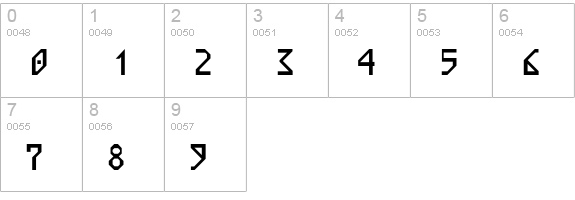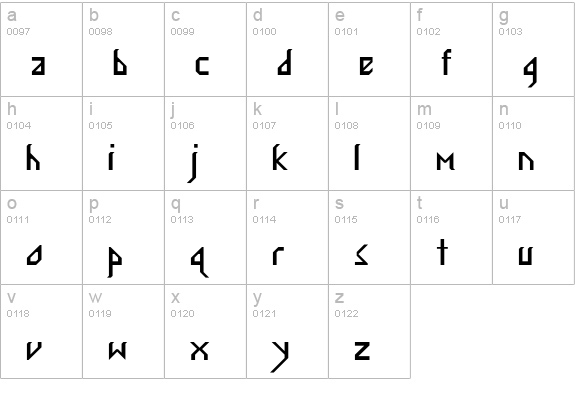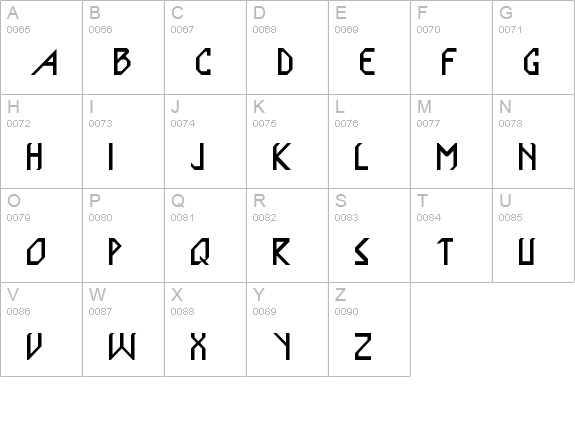
Nourse Font Details
Nourse font is a modern and elegant typeface that exudes sophistication and style. With its clean lines and graceful curves, Nourse is perfect for adding a touch of refinement to any design project. Whether you're creating a logo, designing a website, or crafting a brand identity, Nourse font will elevate your work to the next level. What makes Nourse font even more appealing is that it is completely free to download. You can easily access this stunning font at FontsMarket.com, where you can find a wide range of high-quality fonts for all your design needs. Don't miss out on the opportunity to enhance your projects with the timeless beauty of Nourse font – download it for free today!